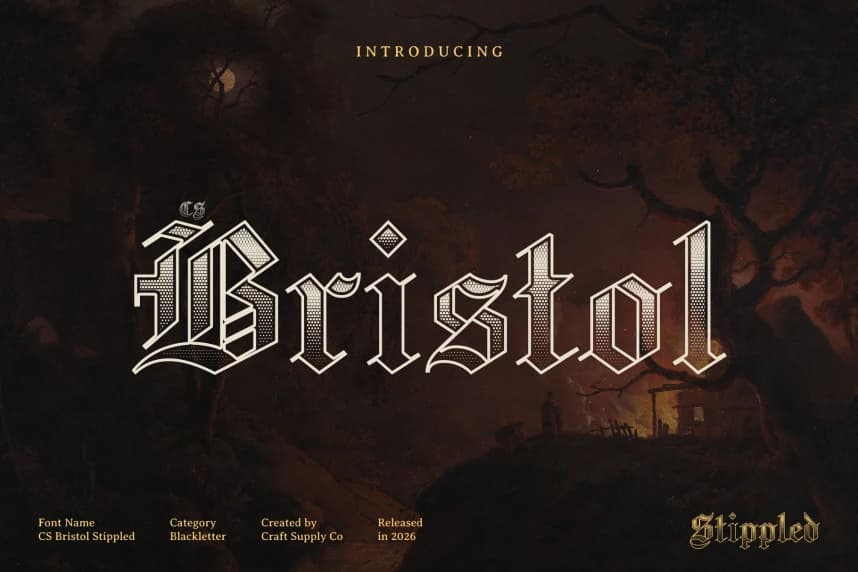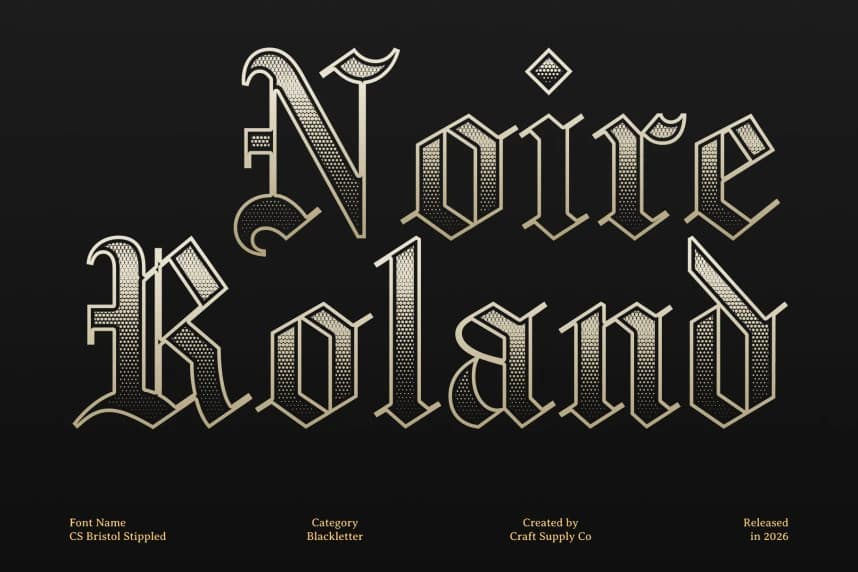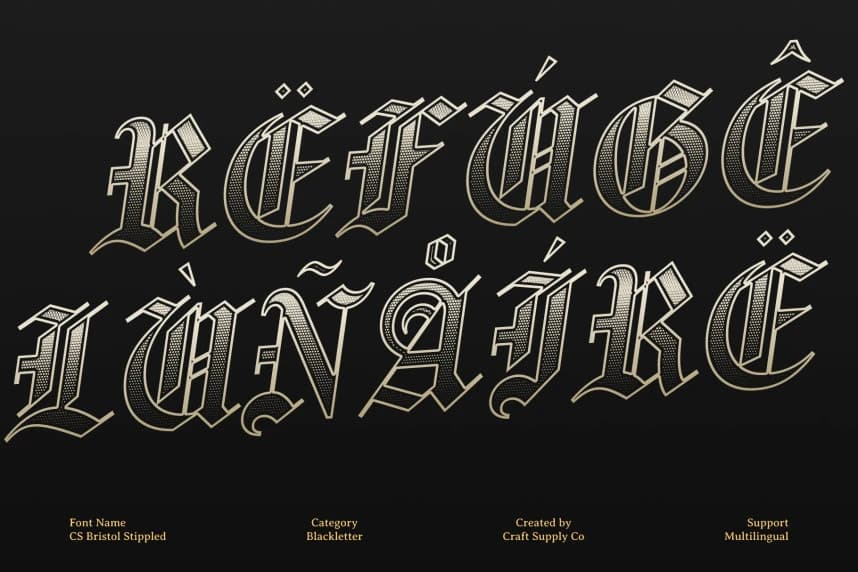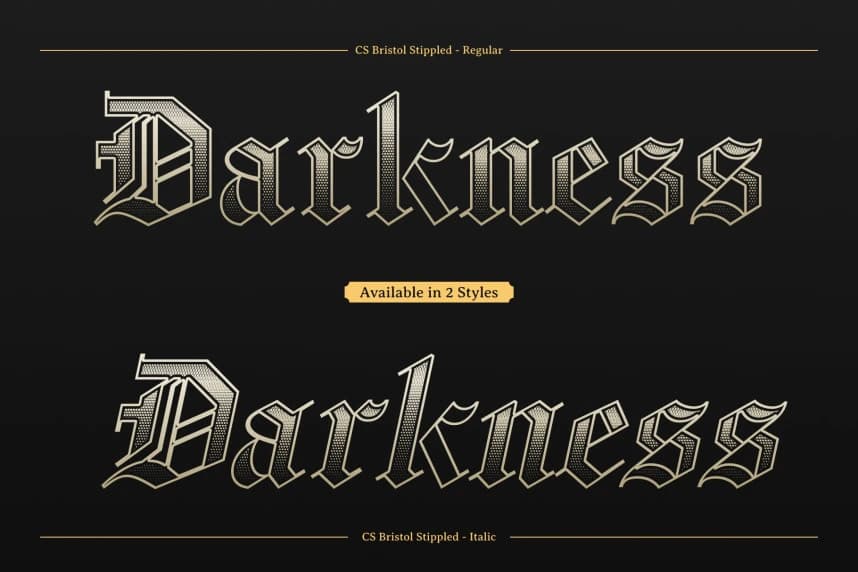
CS bristol Stippled Font
CS Bristol Stippled Font – Old English Blackletter with Textured Prestige Classic Old English Blackletter with Stippled Detail. This is a distinguished display serif typeface that embraces the timeless elegance of the Old English blackletter style.